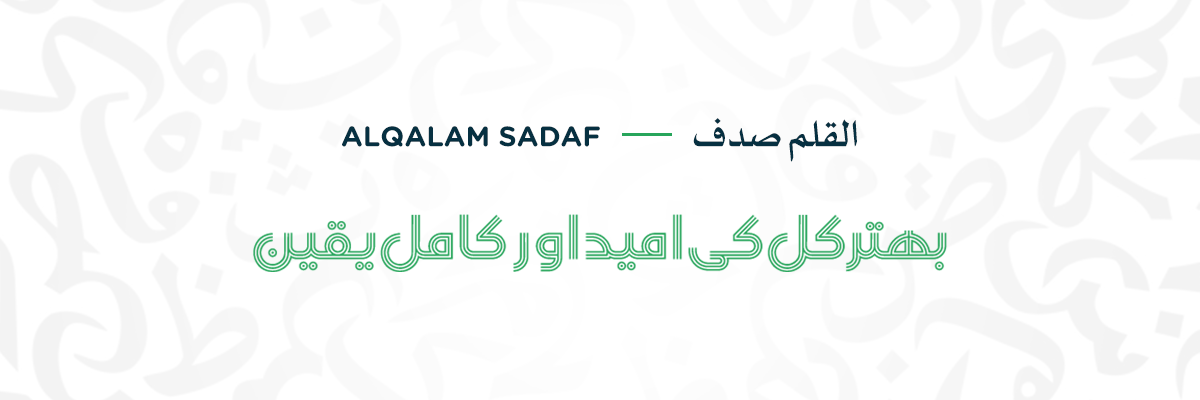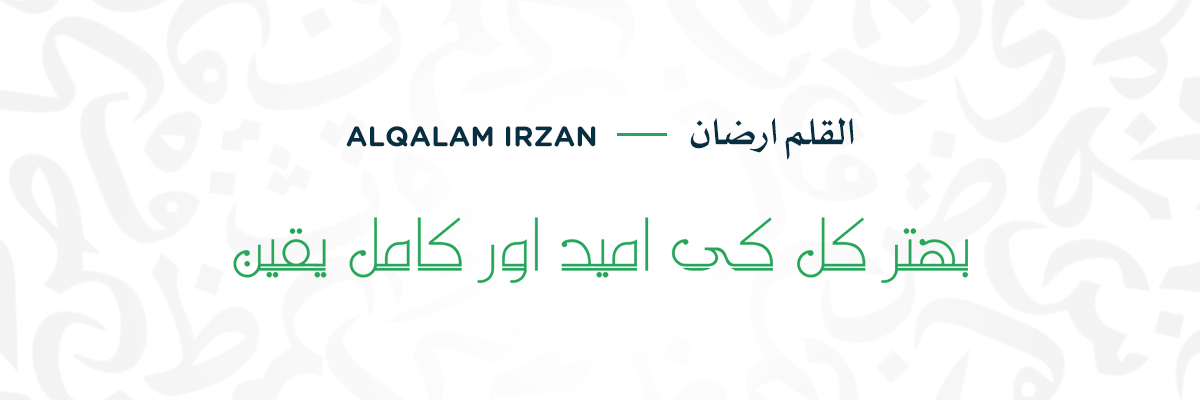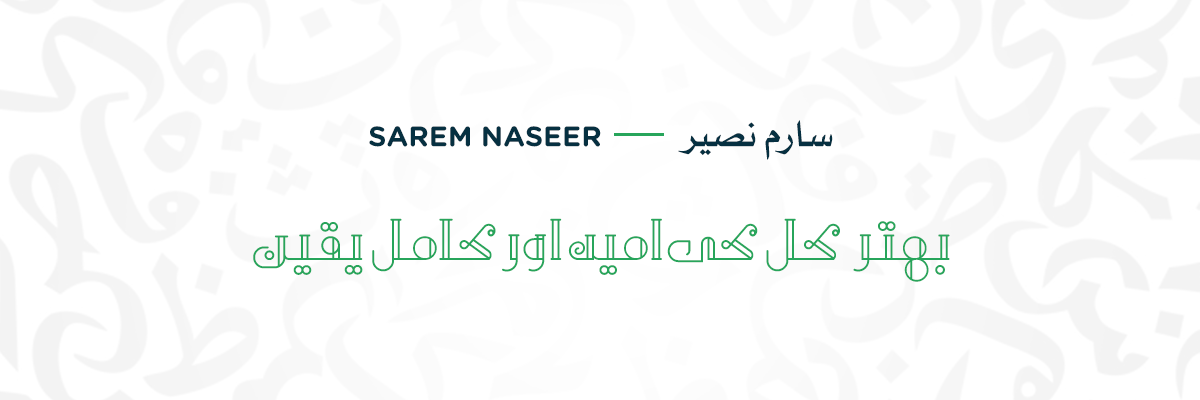
In the world of Urdu typography, the role of fonts extends far beyond just presenting your text in an eye-appealing way on digital interfaces. Fonts serve as visual storytellers, conveying mood, setting tone, and personality about your product or whatever message you want to display through them. Among the diverse array of font styles available, dotted fonts hold a special place, particularly in languages like Urdu. Dotted Urdu fonts, which are recognized by their distinct dotted letterforms, play an important role in various applications, from making educational materials to creative designs. As most of the available dotted or tracing fonts only support Latin-based languages such as English, it can be difficult to look for a typeface that let us create tracing designs in Urdu or Arabic.
Therefore, we bring you some tracing fonts specifically designed for Urdu and Arabic characters. We look into their formation, technical specifications, and how they can complement your designs. So, let’s look at the best tracing or dotted Urdu fonts for your creative works.
Here is a list of of Urdu/Arabic dotted fonts with their few technical specifications and overall appearance to give a mild idea of the font’s overall outlook and compatibility. These fonts are unicode and can be used in any computer or mobile app.
| Sr. | Font | Designer | Characters | Glyphs | Appearance |
|---|---|---|---|---|---|
| 1 | Ibteda | Syed Manzar Hasan Zaidi | 432 | 497 | Small interconnected filled circles, generous space between letters, smooth curves. |
| 2 | Xebec Unicode | Syed Manzar Hasan Zaidi | 433 | 497 | Letters made of small circles or dots have a playful and geometric look. |
| 3 | Abo Slman Alomar 1 | unknown | 566 | 530 | Dotted font, neat and unconnected composition, focus on clarity for learning. |
| 4 | Abo Slman Alomar 2 | unknown | 526 | 530 | Dotted font, neat and clean with a visible baseline for tracing, focus on clarity for learning. |
| 5 | Noor Dotted Nastaleeq | Basim | 203 | 1205 | Tracing font based on Nastaliq scripting language with a slight slant in the letters. |
| 6 | Urdu Dotted | Unknown | – | – | Tracing Urdu font with simple and clean letterforms. |
| 7 | Kids Arabic Dashed | Med Lamjidi- Beast Designer | 214 | 181 | Dashed Arabic font with soft curves and wide letterforms. |
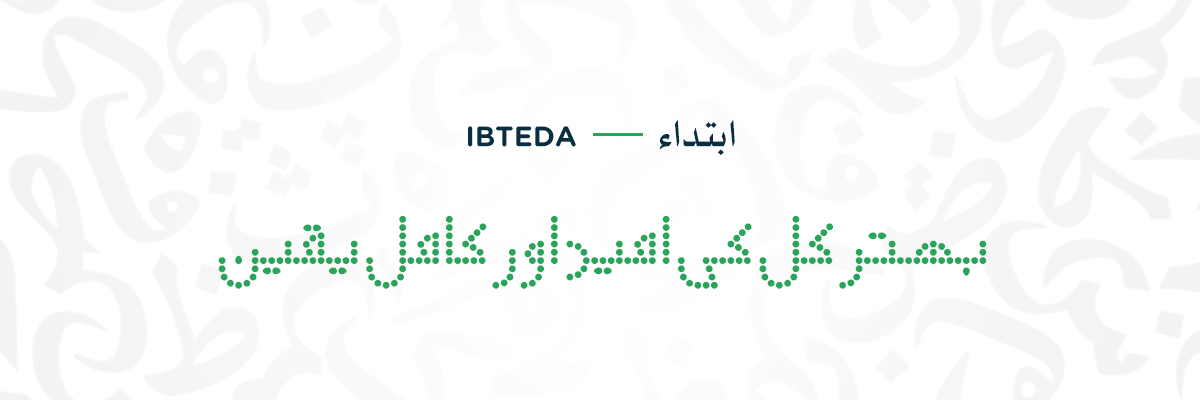
Ibteda is a round dotted Urdu font, and its visual characteristics are defined by its unique design, where letters are constructed from small interconnected circles arranged in a chain-like formation. This simple but unique structure gives the font a playful and practical appearance. The font’s enough spacing between letters and smooth curves increases its overall legibility. The font offers high clarity even when shown in smaller sizes. Despite having an unusual design, this font really maintains readability on another level. Thus, making it perfect for applications such as tracing books or other artistic projects.
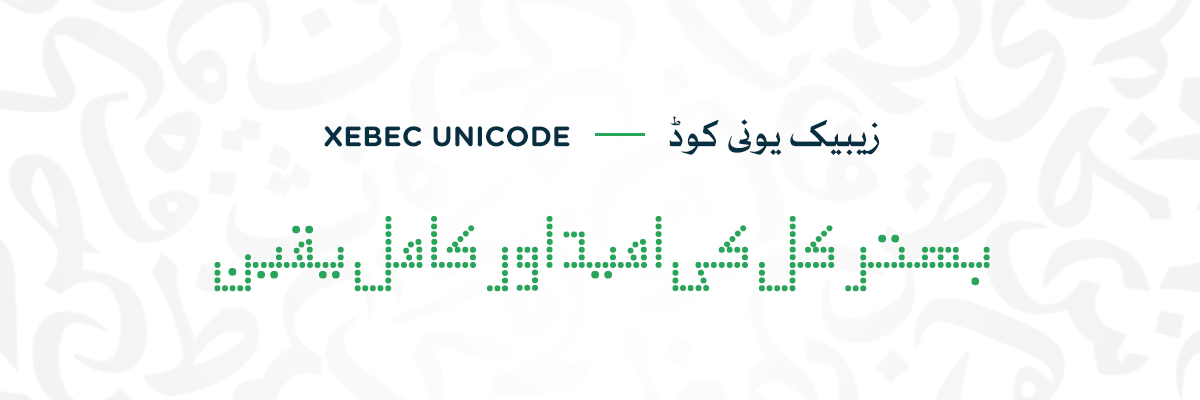
Xebec Unicode offers an unusual letter formation, where each letter is composed of small circles or dots. It is kind of similar to Ibteda, with a slight change in appearance, Instead of soft corners, this font displays sharp angles, displaying a geometric outlook. This playful font is particularly suitable for children’s books and media aimed at young audiences or even other creative designs. Despite its unconventional structure, Xebec Unicode maintains high quality and clarity, even when scaled down or printed in smaller sizes. The uniform size of the circles gives the font a streamlined appearance, further enhancing its visual appeal and legibility.
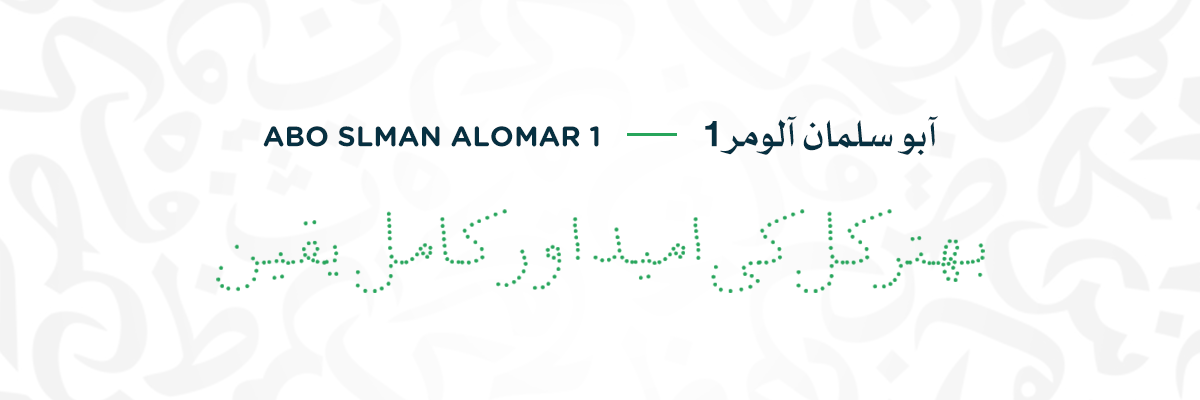
Abo Slman Alomar 1 is a dotted Urdu/Arabic font that offers functionality over aesthetics with a clear and unconnected letterforms made of delicate dots. This minimal design outlook increases your text readability and helps in the learning process, especially for beginners. The font’s medium weight and normal width increase visual appeal, ensuring clarity even at smaller sizes. People who are learning to write Urdu or Arabic can use this font as their guide. Even its curves are simple, with no intricate details to complicate the text. Also, its compatibility with multiple languages and Unicode blocks enhances its diversity in various typo applications.
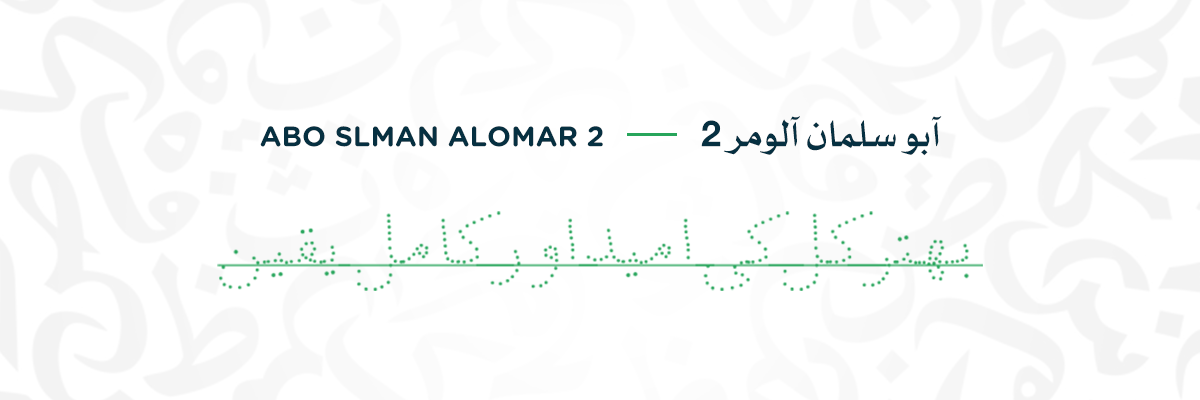
Abo Slman Alomar 2 is distinguished by its clean and organized appearance, giving you functionality over decorative elements. Designed mainly for educational materials, particularly children’s books focused on teaching writing skills, this font features clear and straightforward letterforms. The presence of a visible baseline beneath the letters or words offers a helpful guide for tracing letters which basically helps learners in maintaining alignment and structure. Characterized by a medium font-weight and normal font width, it strikes a balance between readability and aesthetic appeal. Using this font as a help guide can speed up you’re your learning of Urdu writing.
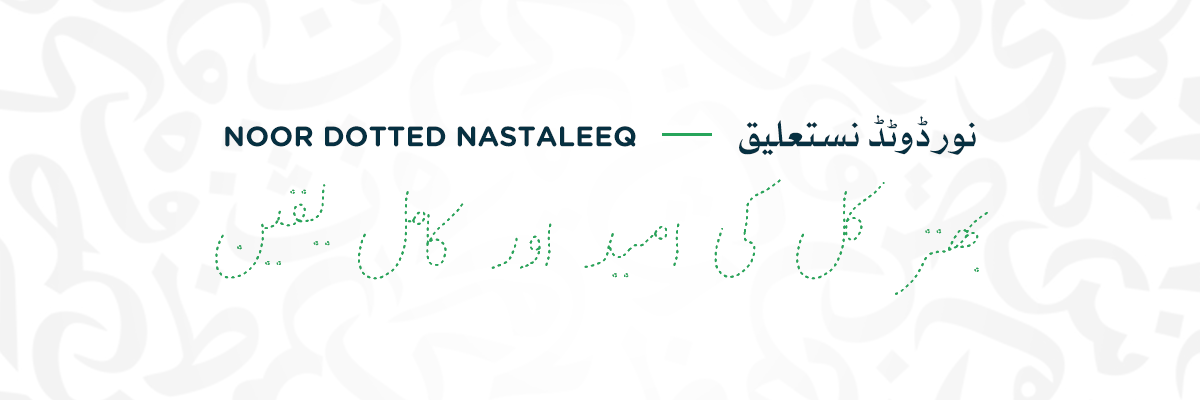
Noor Dotted Nastaleeq is a true Urdu font with a dotted appearance. Its letters are constructed in a way that presents an easy way to draw or trace Urdu characters when printed. The unique factor about this font is unlike other fonts in this list, this one draws inspiration from Nastaleeq calligraphy. Its letters have a compact baseline with a slanted effect, a true Nastaliq characteristic. Offering soft curves and perfectly aligned letters helps kids or beginners to learn and understand Urdu scripting easily. It is readable even at smaller sizes and is compatible with various Unicode standards. Therefore it can be used across different design platforms easily.
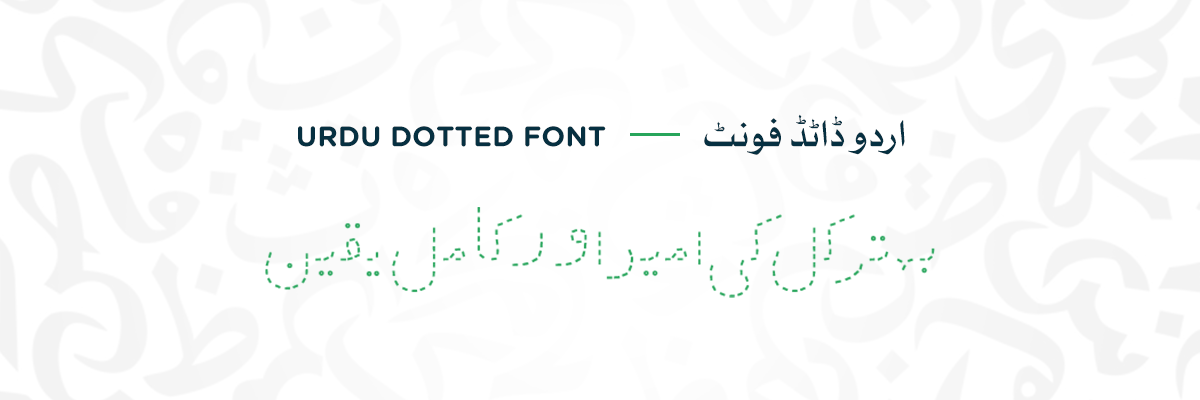
It is a premium or paid tracing Urdu font with dotted letterforms. The font has no complex structures involved, offering a simple and minimalistic appeal. This font does not take any inspiration from Arabic scripting techniques, keeping it plain and simple. It has soft curves and smooth letterforms, so when we trace the letters, the pencil/pen will move smoothly over the paper. There is also an English counterpart of this font available, for learning English writing. It offers clarity even in smaller prints. Therefore, it is the best choice for kindergarten students learning to hold a pencil and write.